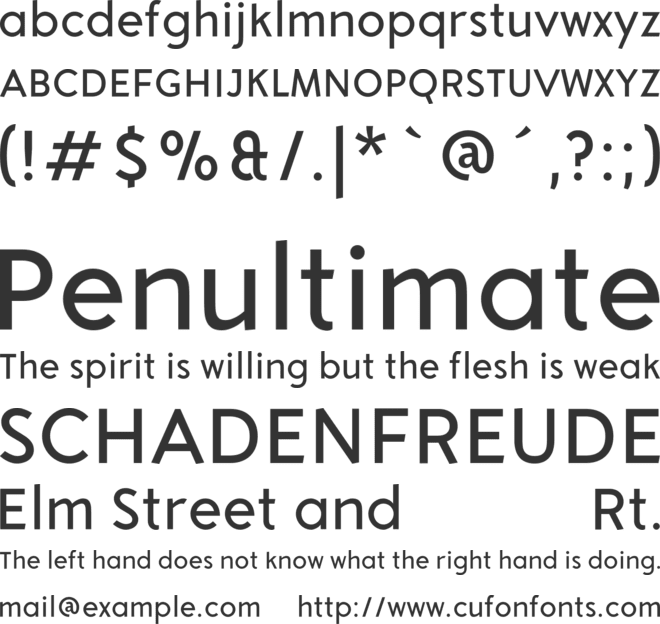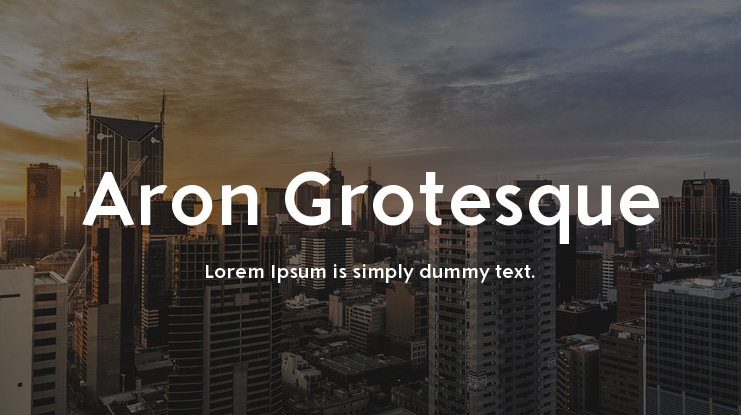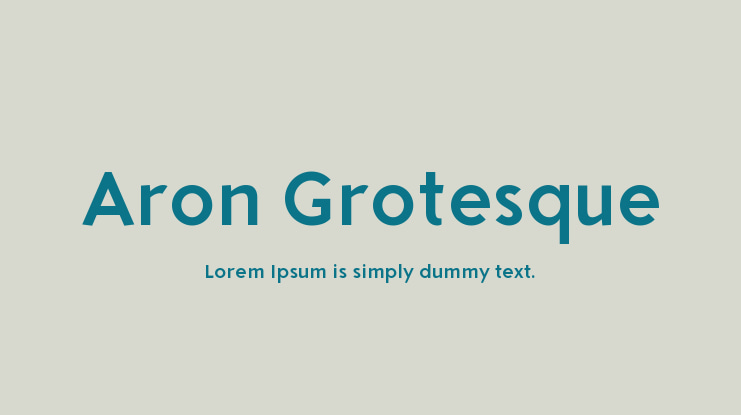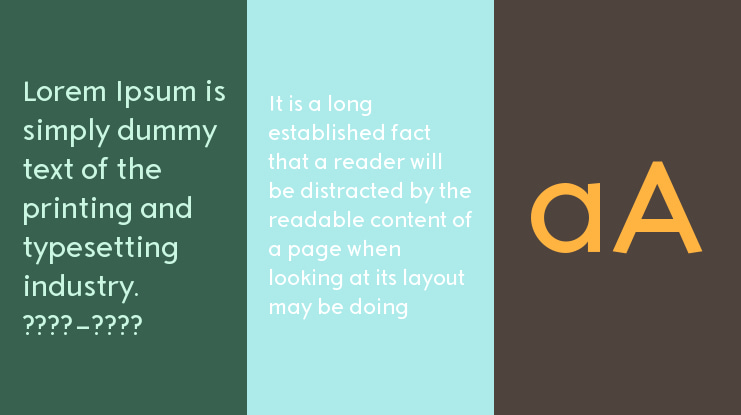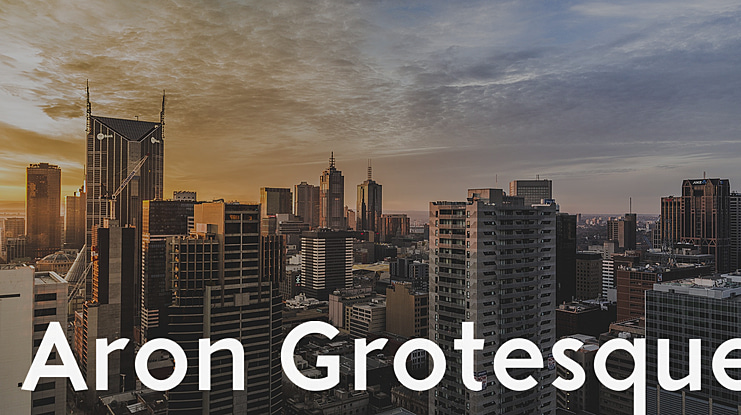
Aron Grotesque Font Family
Valentino Coppi for Monocromo
Aron Grotesque is a Geometric Sans Serif Font optimized to be a Web font.
Aron design comes from the study of humanist sans serif typeface,
it has optical adjustments to improve legibility and it is spaced to be used as a Text font, in fact give it best form 14 to 21 pts.
Aron has some details in its shape that are visible if used as Display font, peculiarities that make it our Grotesque typeface.
It’s name after Raymond Aron, one of the preeminent French intellectual of XXth century.
The character set includes some old style glyphs ligatures, often forgotten nowdays, as "ct" and "st" and the basic mathematics glyphs, it also include OpenType Ligatures feature.